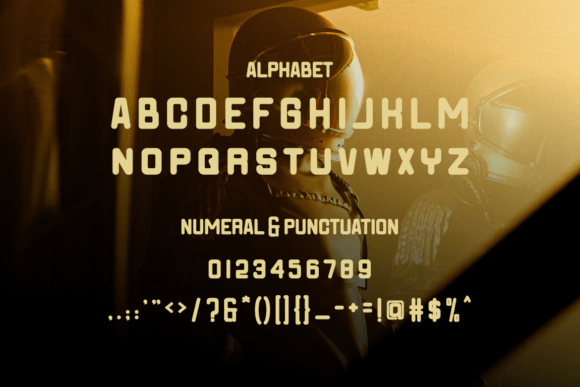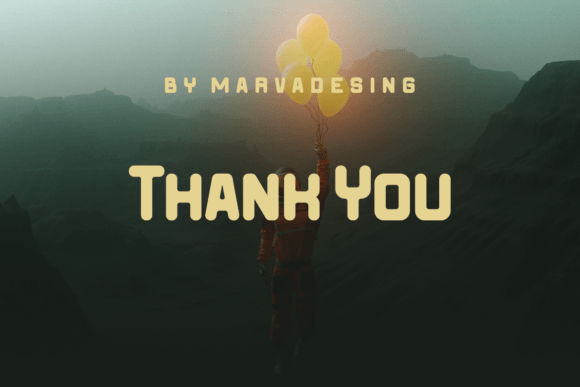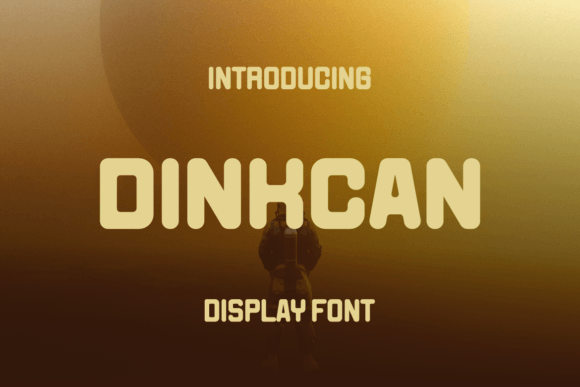
Dinkcan Font: Elevate Your Designs with a Unique and Stylish Display Font
In the world of typography, a good font can make all the difference in creating visually appealing designs. For designers and crafters looking to add a touch of modernity and sophistication to their work, the Dinkcan font is an excellent choice. This unique, stylish, and modern display font is designed to enhance any creation, regardless of the topic or theme.
What is Dinkcan Font?
Dinkcan font is a display font that boasts a distinctive and elegant design. Its modern aesthetic makes it perfect for a wide range of applications, from branding and advertising to packaging and digital media. The font’s unique characteristics set it apart from more traditional fonts, allowing designers to add a touch of personality to their work.
Key Features of Dinkcan Font
- Unique Design: Dinkcan font features a one-of-a-kind design that is sure to grab attention. Its stylish and modern aesthetic makes it perfect for designers looking to create visually striking designs.
- Versatility: This font is incredibly versatile and can be used for a wide range of applications, from headlines and titles to branding and advertising.
- Legibility: Despite its unique design, Dinkcan font remains highly legible, making it suitable for use in both digital and print media.
- Customization: The font comes in a range of styles and weights, allowing designers to customize their designs to suit their needs.
Benefits of Using Dinkcan Font
So, why should designers and crafters choose Dinkcan font for their projects? Here are just a few benefits of using this unique and stylish display font:
- Enhance Your Designs: Dinkcan font has the potential to elevate any design, adding a touch of modernity and sophistication that is sure to impress.
- Stand Out from the Crowd: With its unique design, Dinkcan font is sure to help designers stand out from the crowd and create visually striking designs that grab attention.
- Save Time: The font’s versatility and customization options mean that designers can use it for a wide range of applications, saving time and effort in the design process.
- Improve Brand Recognition: For businesses and brands, using a unique and stylish font like Dinkcan can help to improve brand recognition and create a lasting impression on customers.
How to Use Dinkcan Font
Using Dinkcan font is easy and straightforward. Here are a few tips for incorporating this unique and stylish display font into your designs:
- Pair it with Other Fonts: Dinkcan font pairs well with a range of other fonts, making it easy to create visually appealing designs.
- Experiment with Different Weights: The font comes in a range of weights, allowing designers to experiment with different styles and create a unique look.
- Use it for Headlines and Titles: Dinkcan font is perfect for use in headlines and titles, where its unique design can really make an impact.
In conclusion, Dinkcan font is a unique, stylish, and modern display font that is sure to enhance any creation. Its versatility, legibility, and customization options make it an excellent choice for designers and crafters looking to add a touch of modernity and sophistication to their work. Whether you’re creating a brand identity, designing a website, or crafting a marketing campaign, Dinkcan font is a wonderful asset to have in your font library.